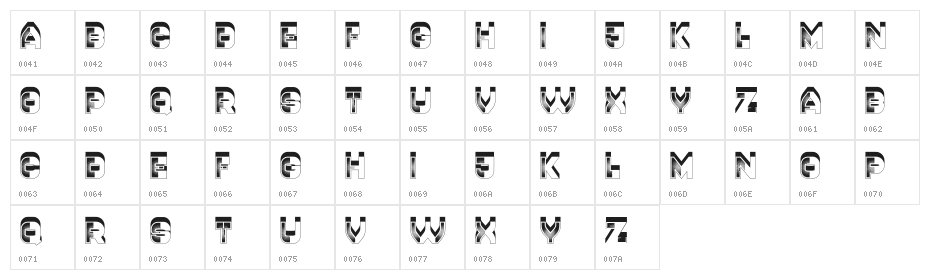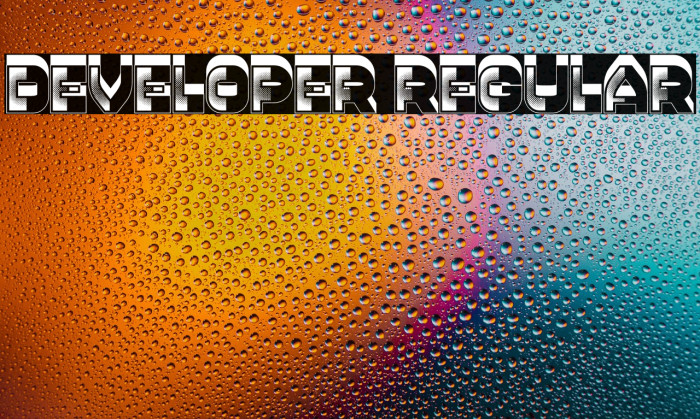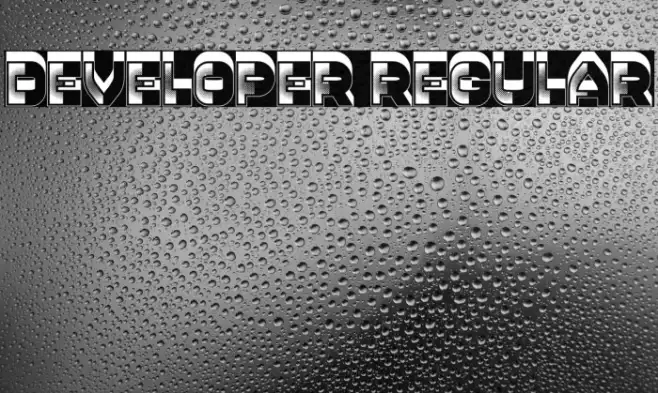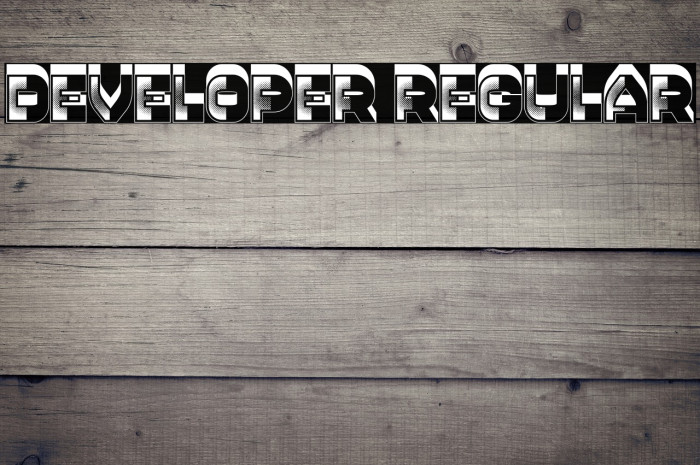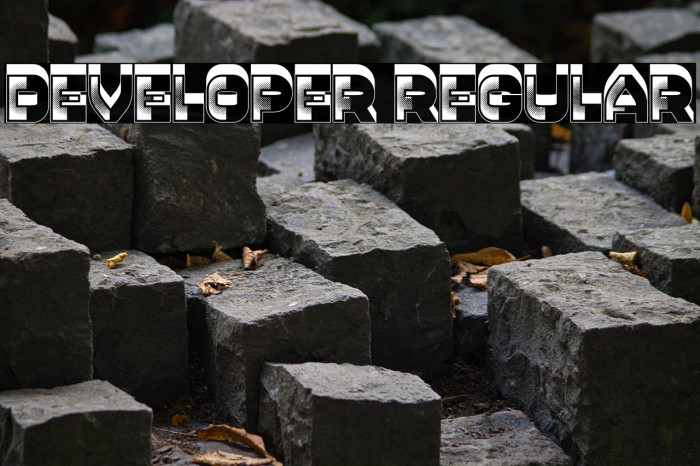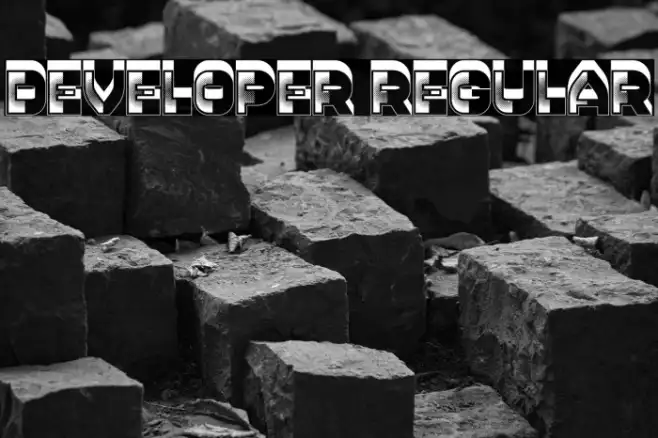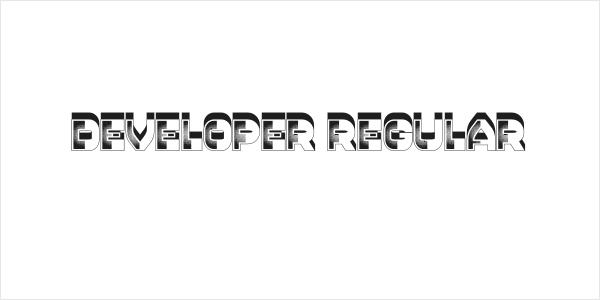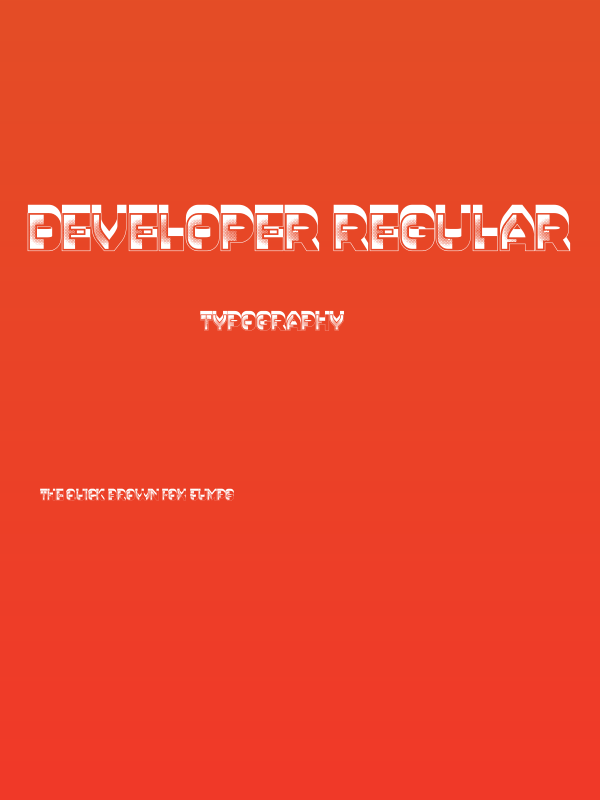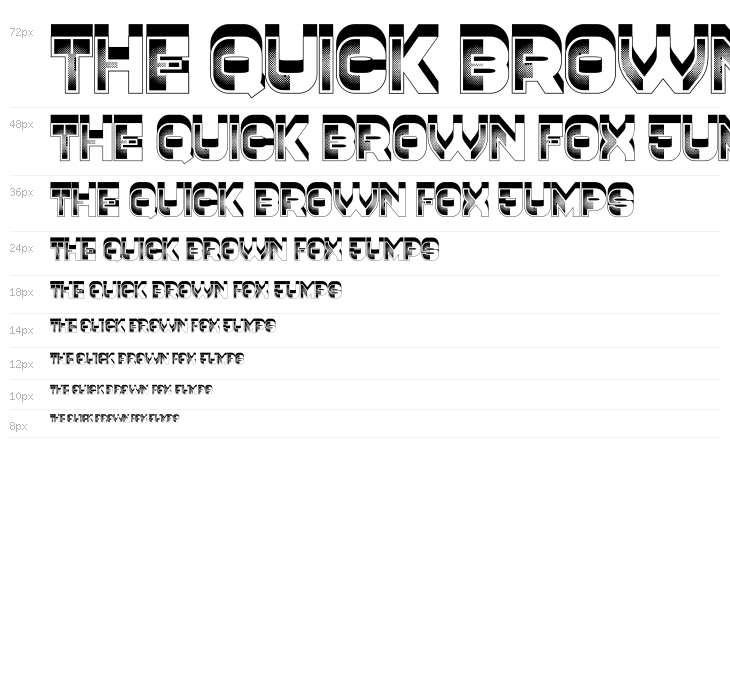
Developer Regular Font
Developer Regular Description
This font features a bold, decorative style with a distinct three-dimensional effect. Each character is designed with a shadow that adds depth, creating a striking visual impact. The letters are uppercase and have a geometric structure, with sharp angles and clean lines. The inner part of each character is filled with a halftone pattern, enhancing the dynamic and modern appearance. This font is ideal for projects that require a strong and eye-catching display, such as posters, headlines, and branding materials.
| Proposed Projects | Ideal for posters, headlines, branding, and any project needing a bold visual impact. |